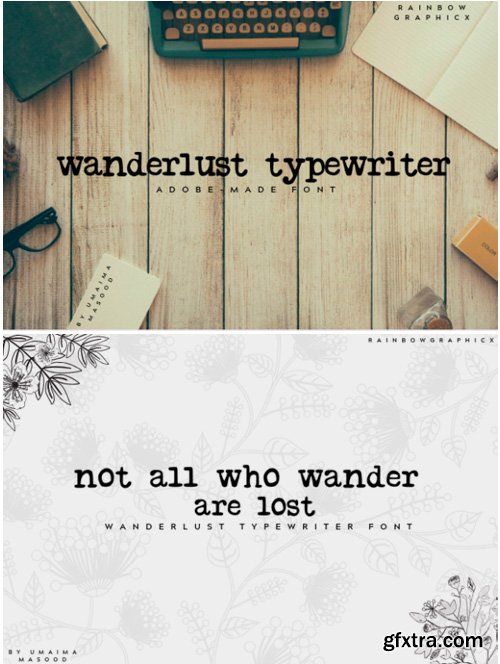
Wanderlust Typewriter Font
Wanderlust Typewriter is an all lowercase font that makes your text look like it was printed on a typewriter. Great for a variety of projects!